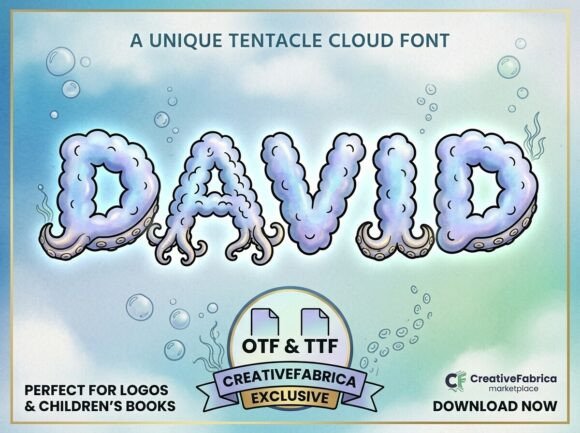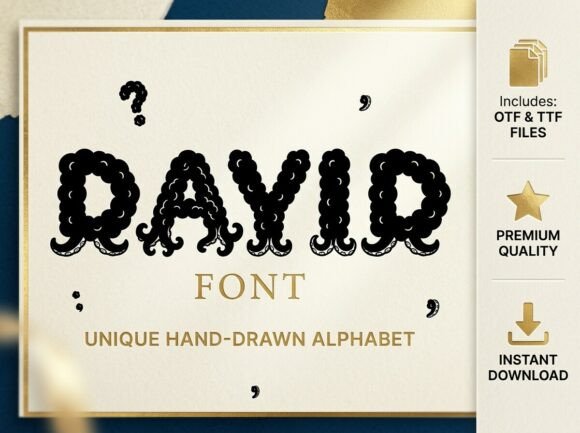
The Ultimate Showstopper: Unleashing the Power of David Font
I’ll never forget the time I was working on a project for a client who wanted a bold, eye-catching poster design. I had spent hours browsing through font libraries, but nothing seemed quite right. That was until I stumbled upon David Font. Its unique artistic elements and strong visual personality immediately caught my attention, and I knew I had found the perfect fit. In this article, we’ll dive into what makes David Font so special and how you can use it to elevate your designs.
I’ve had the pleasure of working with David Font on several projects, and here’s what I think:
- ✨ Stunning decorative details: This font is perfect for making a statement. Its intricate details and creative letterforms add an instant “wow” factor to any project.
- ✅ Versatility: David Font is versatile enough for bold headlines, artistic logos, and creative packaging, while maintaining a professional and polished finish.
- 💥 High-impact designs: Whether you’re designing a modern poster, a unique brand identity, or eye-catching social media content, this font is sure to turn heads.
Of course, no font is perfect, and here are a few quirks to keep in mind:
- 🤔 Legibility at small sizes: While David Font is stunning at larger sizes, it can become a bit tricky to read at smaller sizes. Be sure to test it out before committing to a specific use case.
- ⚠️ Limited use cases for body text: Due to its decorative nature, David Font is best suited for headlines and titles rather than body text.
The Story Behind David Font
David Font was designed by a team of creatives who wanted to push the boundaries of traditional typography. Inspired by the world of art and design, they crafted a font that would be both visually striking and versatile. The result is a font that is both elegant and bold, perfect for making a statement in any design.
| Font Name | David Font |
| What type of designs is David Font best suited for? | David Font is perfect for high-impact designs such as poster design, branding and logos, apparel and merch, social media content, and packaging. |
| Can I use David Font for body text? | While David Font is stunning for headlines and titles, it’s not recommended for body text due to its decorative nature. |
| Is David Font available in different weights and styles? | Yes, David Font comes in a range of weights and styles, making it versatile enough for a variety of design applications. |